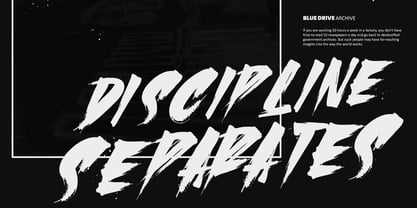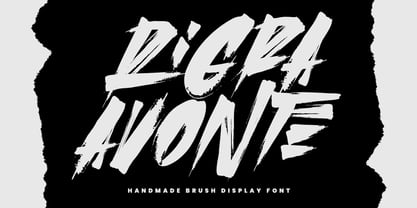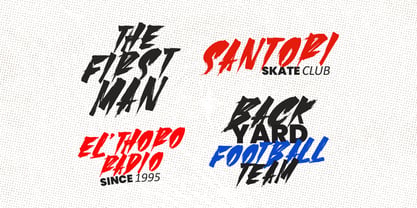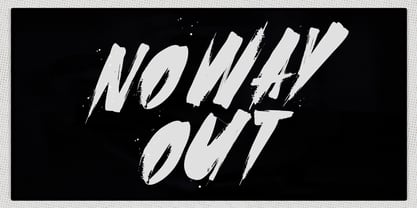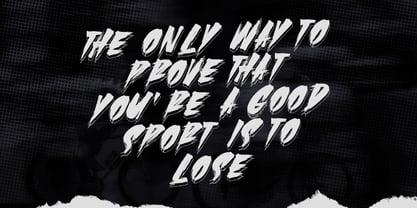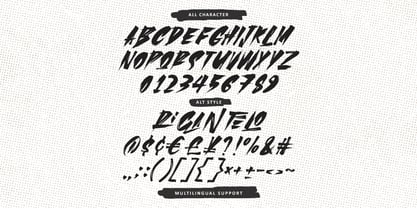
MC Rigra Avonte
by Maulana Creative
The MC Rigra Avonte Font Family was designed by Gilang Maulana and published by Maulana Creative. MC Rigra Avonte contains 1 styles. More about this family
Rigra Avonte is a brush display handwritten font. With bold stroke, fun character with a bit of alternates and ligatures. To give you an extra creative work. Rigra Avonte font support multilingual more than 100+ language. This font is good for logo design, Social media, Movie Titles, Books Titles, a short text even a long text letter and good for your secondary text font with sans or serif. Make a stunning work with Rigra Avonte font.
Designers: Gilang Maulana
Foundry: Maulana Creative